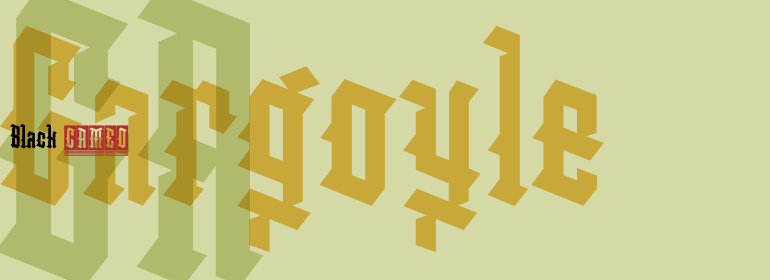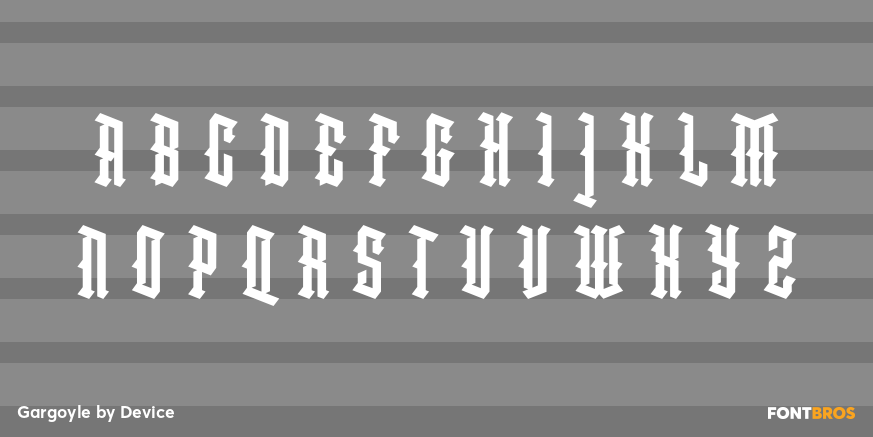
Gargoyle
Gargoyle is a two-style display family from Device with a dark, historical character and a distinctly ornamental feel. Its dramatic letterforms give it an old-world, carved look that feels theatrical, moody, and made to stand out.
Including Gargoyle Cameo and Gargoyle Black, the family offers two related takes on the same gothic-inspired voice. It’s a strong choice for posters, themed branding, packaging, signage, or other decorative display work where you want a stylized, era-evoking impression rather than a neutral tone.